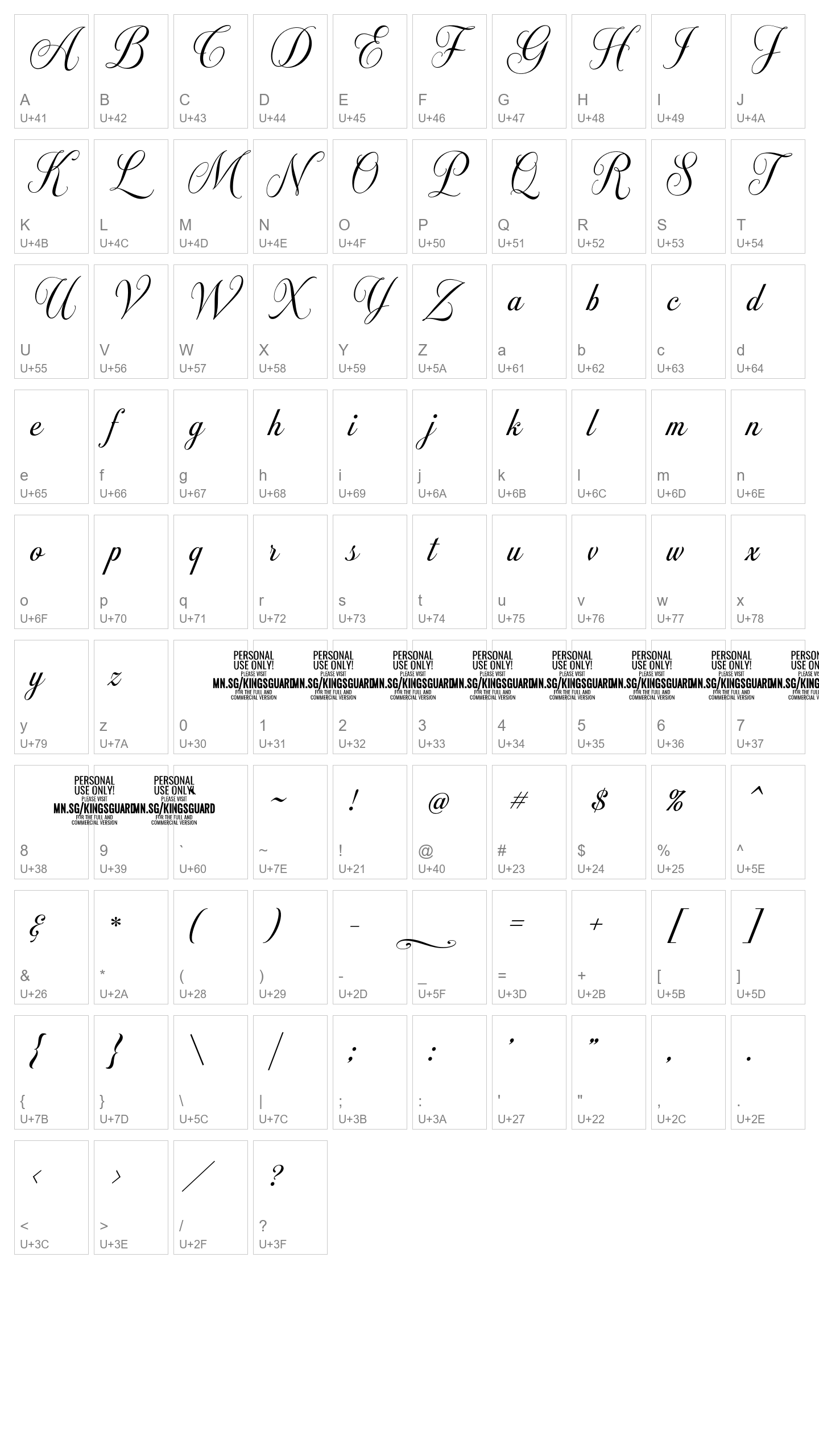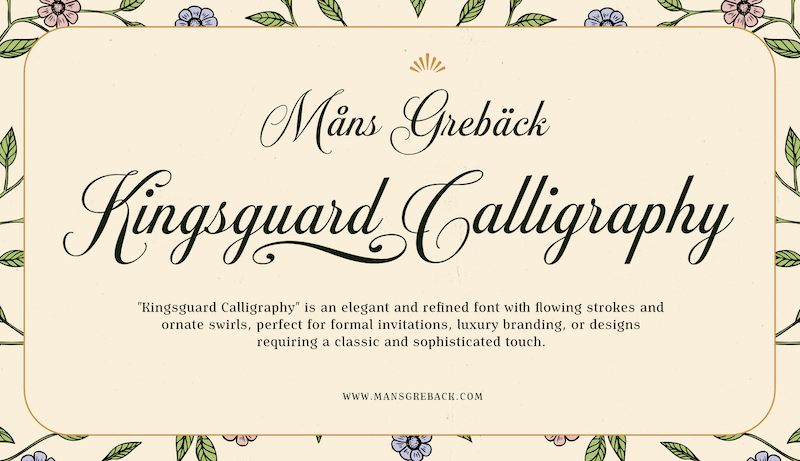
Kingsguard Calligraphy
Kingsguard Calligraphy is a sophisticated script font with graceful, flowing lines and a classic formal look.
Its ornaments maintains a touch of grandeur, with loops and curves that gives it an exclusive appearance.
Use underscore _ anywhere in a word to create a swash.
Example: Rose_field
Use multiple underlines to created longer decorations.
Example: Magic_____land